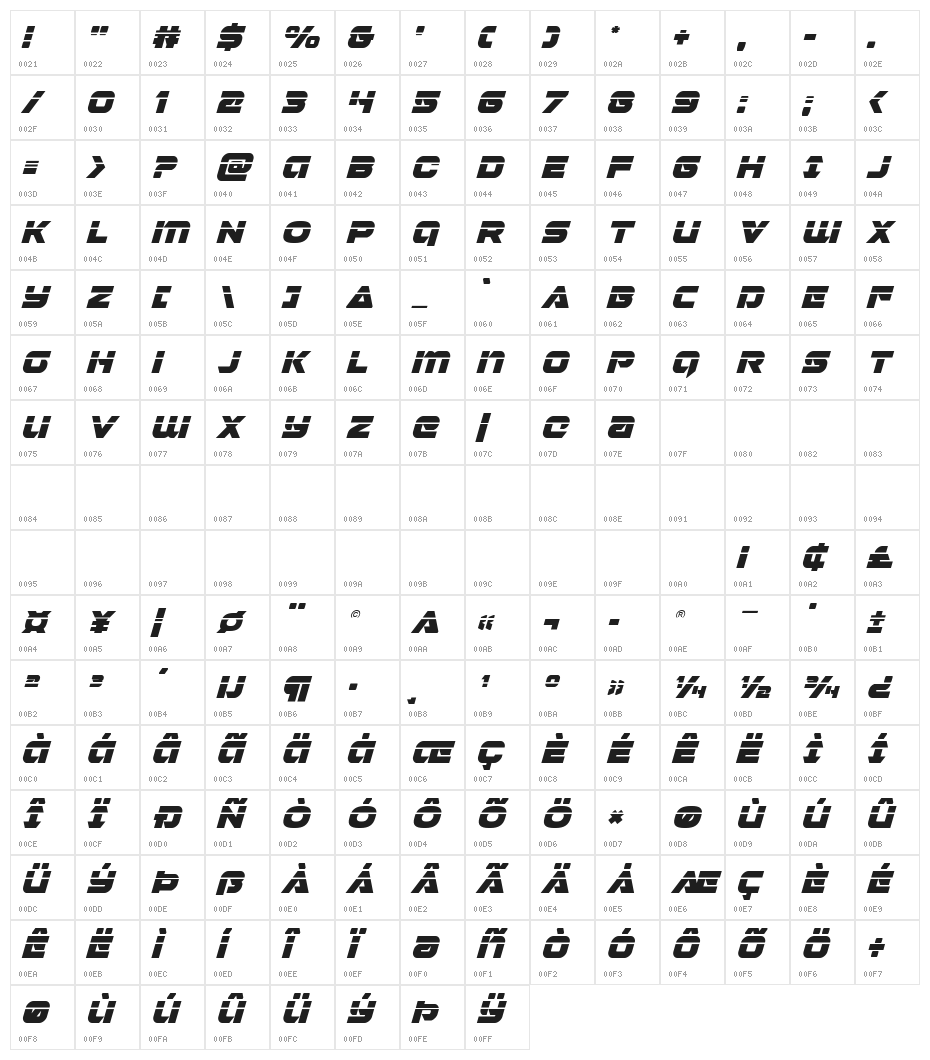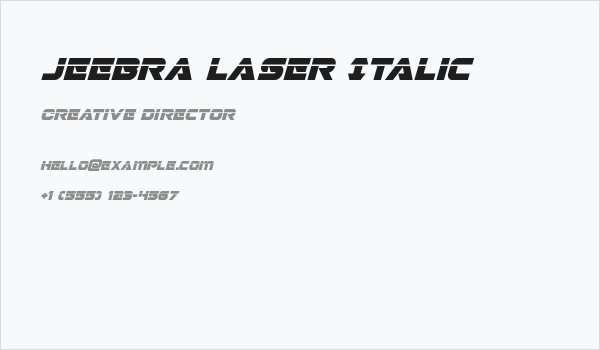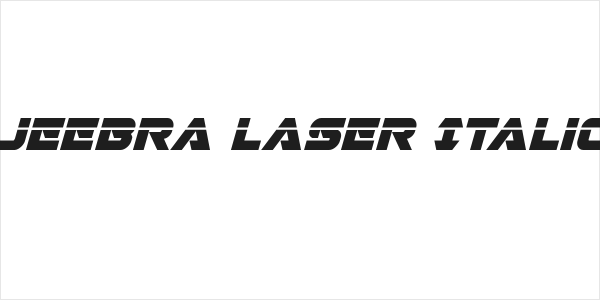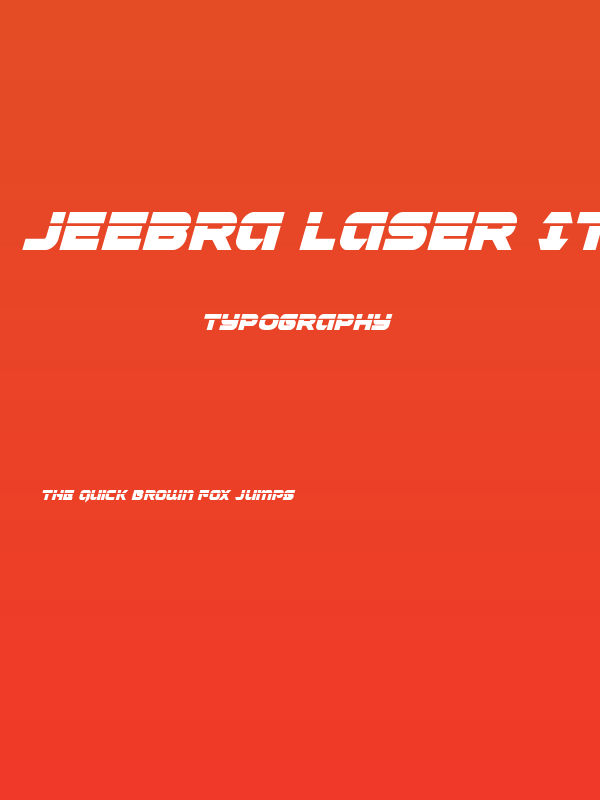
Jeebra Laser Italic Font
Jeebra Laser Italic Description
This font features a bold and futuristic design with sharp, angular lines and a distinct italic slant. The characters are tightly spaced, giving it a compact and dynamic appearance. The uppercase and lowercase letters share a consistent style, with a strong emphasis on geometric shapes and a sleek, modern aesthetic. The numerals and special characters maintain this cohesive look, making the font suitable for high-impact visual projects. Its bold weight and italicized form contribute to a sense of speed and movement, ideal for technology or sci-fi themed designs.
| Proposed Projects | Ideal for technology branding, sci-fi posters, video game titles, and modern advertising. |